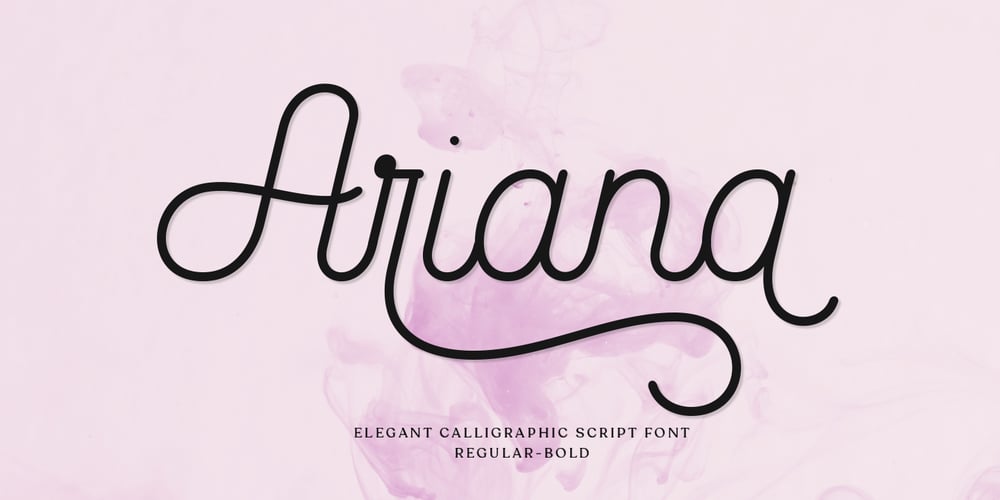
Ariana Script Font Family was designed by Mur Zani and published by Zane Studio. Ariana Script contains 2 styles and family package options. Introducing a new, elegant Ariana Script Font! If you need a casual chic calligraphic touch to your designs, this font is made for you!Ariana Script is built with OpenType features and includes start and end swashes, alternative characters for lowercase and uppercase letters, lots of different swash alternatives for lowercase, numbers, punctuation, alternatives, ligatures and also supports other languages :) More than 400 engines fly!If you don’t have opentype capable software, you can still access all ligatures, alternatives and swash alternatives by installing all the supporting fonts included in the download. From there, you can switch between the two as you type for a handwritten, professional look. Take a look at the character map to help you along the way!Thank you very much for visiting my shop!All the best,